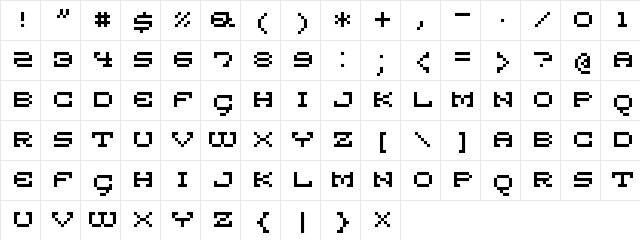
Kandelis Regular
Design Context for Kandelis Typeface
Kandelis takes a measured approach to typography — its balanced proportions and neutral character make it a reliable workhorse for both digital and print work.